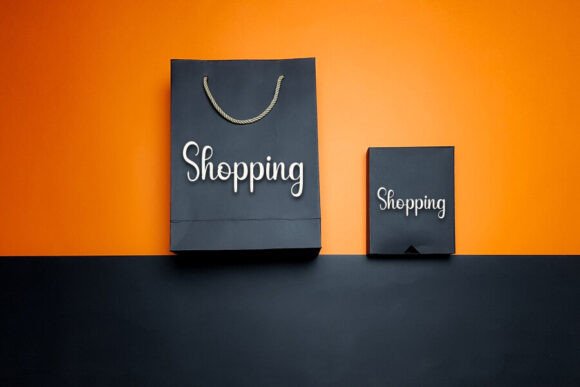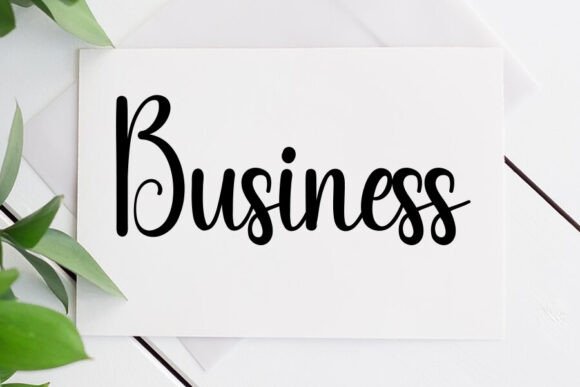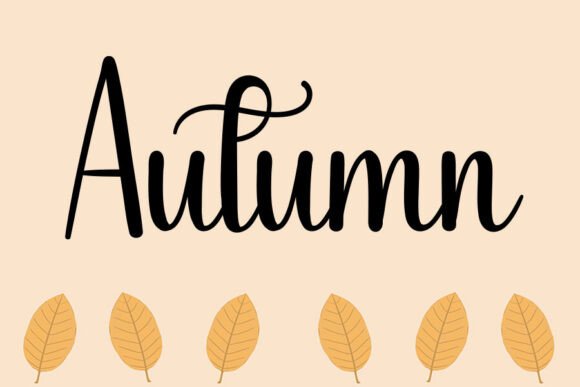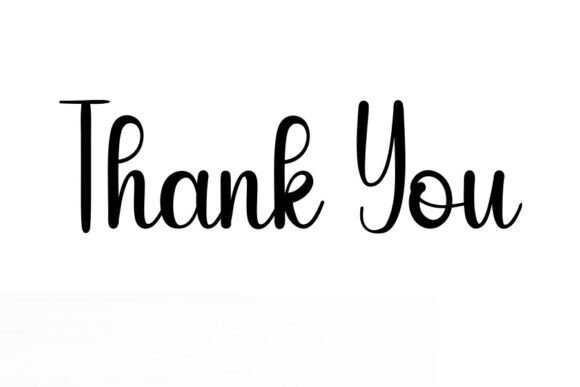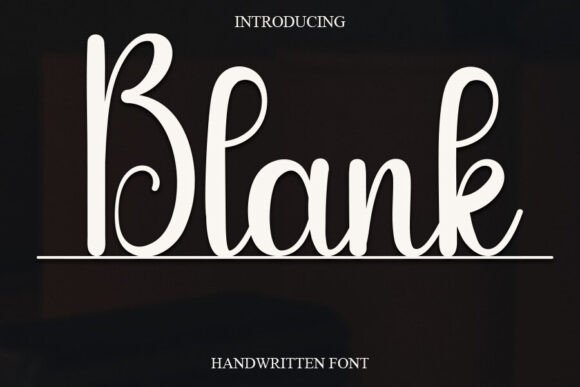
Introducing Blank Font: The Sweet and Cursive Handwritten Font for Elegant Designs
Are you looking for a font that can add a touch of elegance and romance to your designs? Look no further than Blank Font, a sweet and cursive handwritten font that is perfect for a variety of design projects. In this article, we’ll explore the features and benefits of Blank Font, and show you how it can elevate your designs to the next level.
What is Blank Font?
Blank Font is a beautiful, handwritten font that is designed to add a touch of whimsy and romance to your designs. Its gentle, cursive curves make it perfect for creating elegant and sophisticated designs that are sure to impress. Whether you’re working on a branding project, a wedding invitation, or a fashion lookbook, Blank Font is the perfect choice.
Features of Blank Font
So, what makes Blank Font so special? Here are just a few of its key features:
- Sweet and Cursive: Blank Font features a beautiful, cursive script that is sure to add a touch of elegance to your designs.
- Handwritten: This font is designed to look like it was written by hand, giving it a personal and unique touch.
- Versatile: Blank Font can be used for a wide range of design projects, from branding and logos to wedding invitations and greeting cards.
- Elegant and Casual: This font is perfect for designs that need to look elegant and sophisticated, but still casual and approachable.
Use Cases for Blank Font
So, what kinds of projects is Blank Font best suited for? Here are a few ideas to get you started:
- Branding: Use Blank Font to create a logo or brand identity that is elegant and sophisticated.
- Wedding Invitations: Add a touch of romance and whimsy to your wedding invitations with Blank Font.
- Greeting Cards: Use Blank Font to create beautiful, handmade-style greeting cards for any occasion.
- Fashion: Blank Font is perfect for fashion lookbooks, catalogs, and other marketing materials.
- Marketing Promotion: Use Blank Font to add a touch of elegance and sophistication to your marketing materials, such as brochures and flyers.
Tips for Using Blank Font
Here are a few tips for getting the most out of Blank Font:
- Use it sparingly: Because Blank Font is so elegant and sophisticated, it’s best to use it sparingly. Use it for headings or titles, and pair it with a simpler font for body text.
- Experiment with colors: Blank Font looks beautiful in a variety of colors, from soft pastels to rich jewel tones. Experiment with different colors to find the one that works best for your design.
- Pair it with other fonts: Blank Font pairs beautifully with other fonts, such as sans-serif fonts or serif fonts. Experiment with different pairings to find the one that works best for your design.
In conclusion, Blank Font is a beautiful and versatile font that is perfect for a wide range of design projects. Its sweet and cursive handwritten style makes it perfect for adding a touch of elegance and romance to your designs. Whether you’re working on a branding project, a wedding invitation, or a fashion lookbook, Blank Font is the perfect choice. So why wait? Download Blank Font today and start creating beautiful, elegant designs that will impress your clients and audience.
With its gentle curves and whimsical charm, Blank Font is sure to become a favorite in your font collection. And with its versatility and range of use cases, you’ll find yourself reaching for it again and again. So go ahead, get creative, and see what amazing designs you can create with Blank Font!